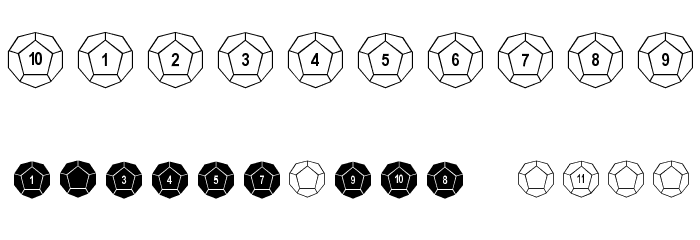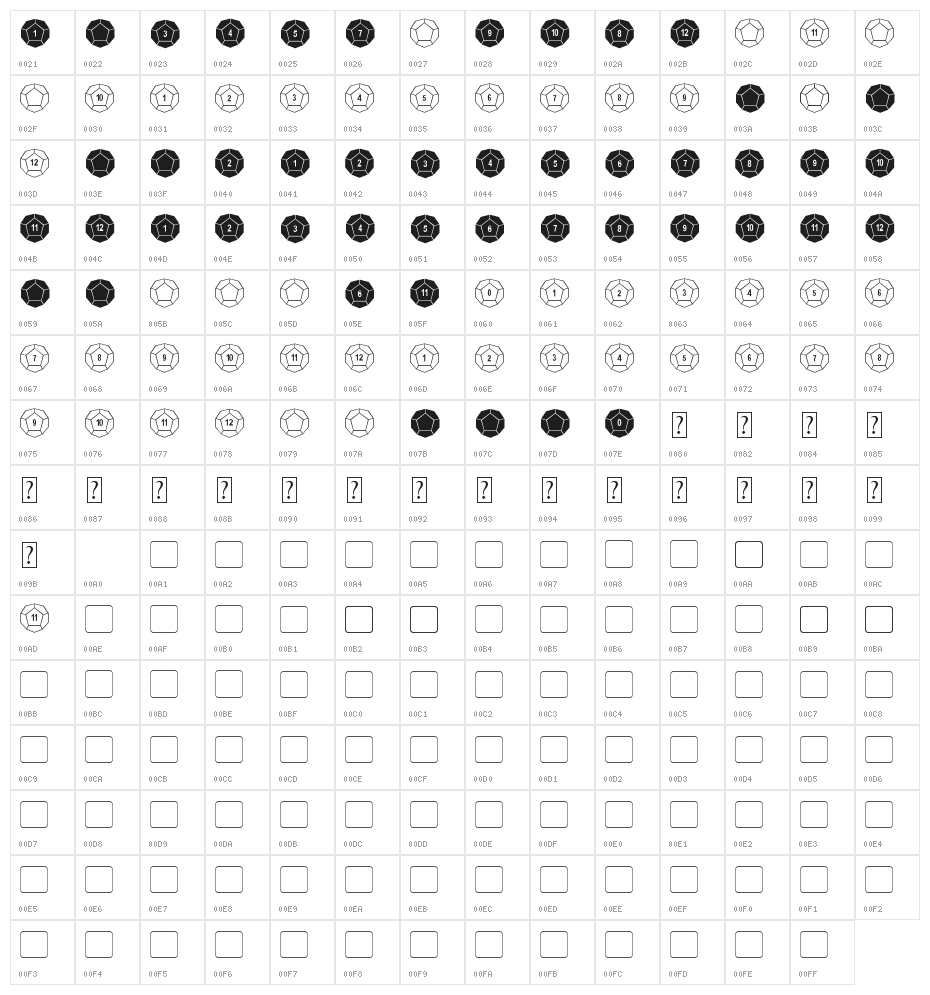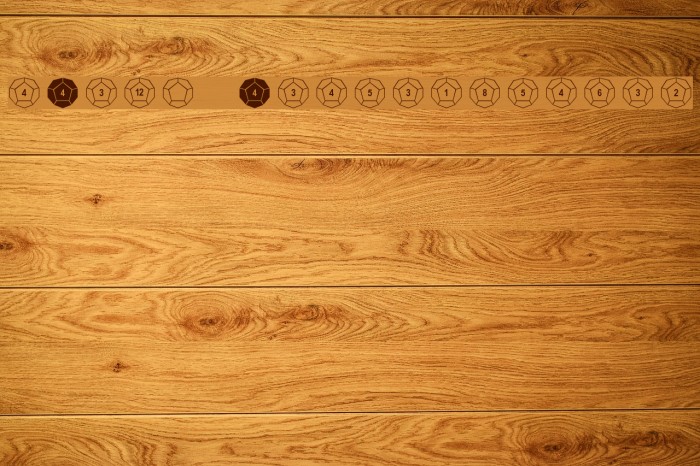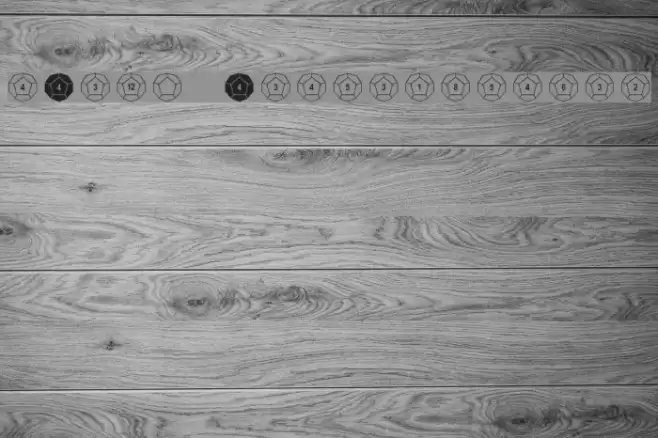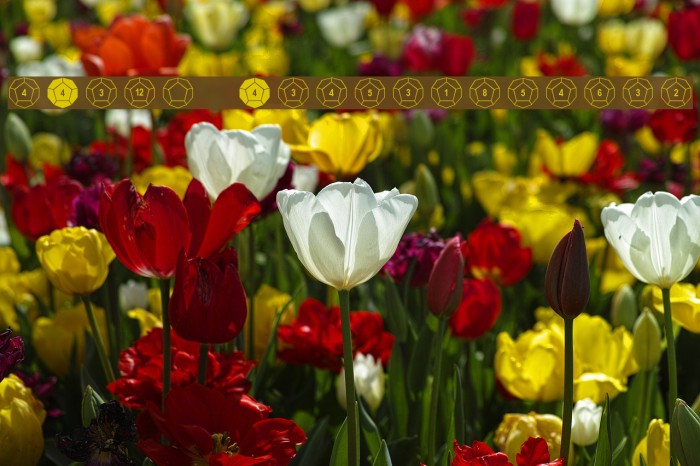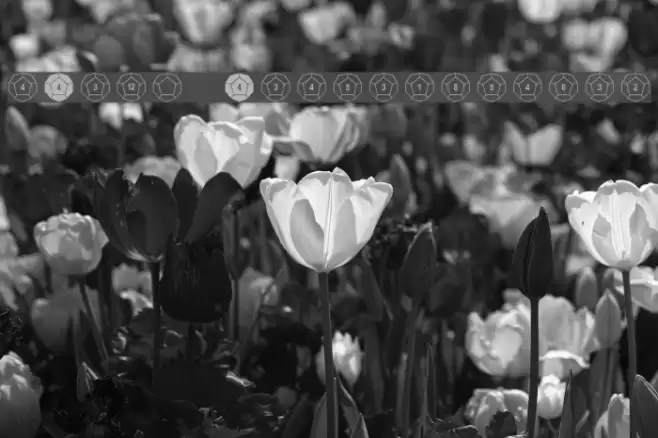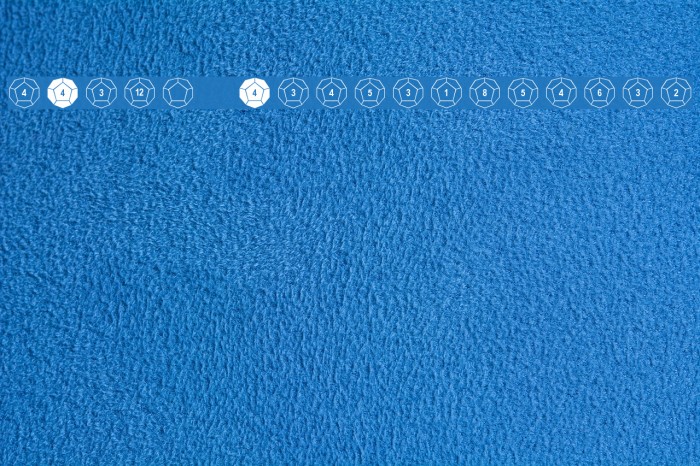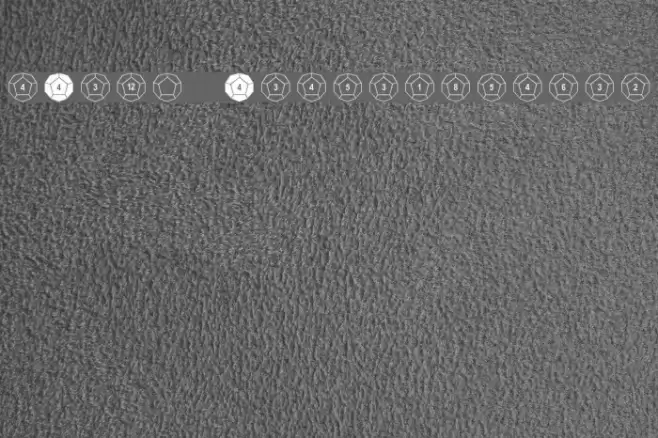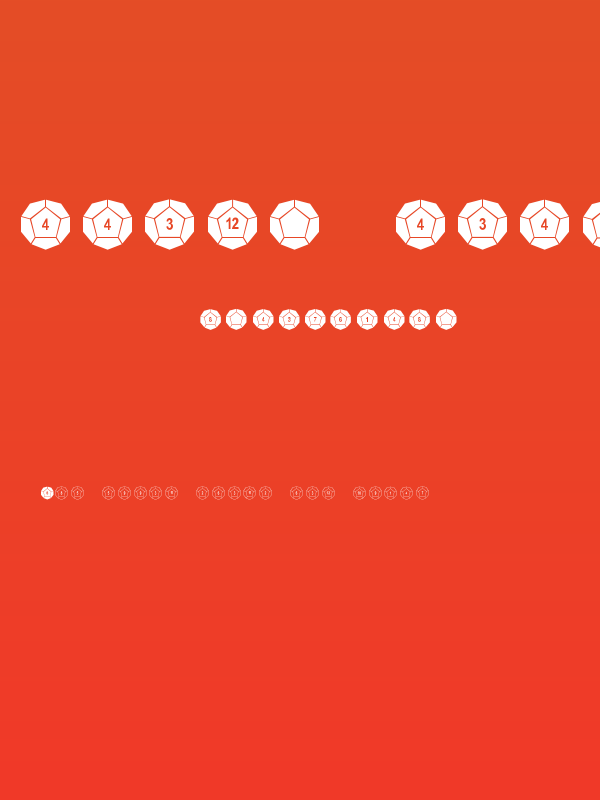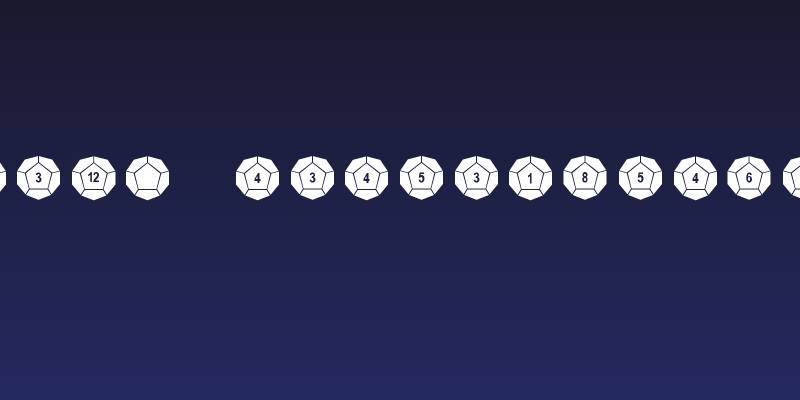
dPoly Dodecahedron Font
dPoly Dodecahedron Description
Geometric numerals are centered within dodecahedron outlines, alternating between filled and unfilled backgrounds, creating a structured, mathematical appearance. The numbers are clear and legible, with a sans-serif style and even stroke weight.
| Overall Style | Modern, Geometric, Decorative |
| Use Case | Game design, Infographics, Educational charts, Themed posters |
| Proposed Projects | Board games, educational materials, math or science infographics, dice design, tabletop gaming accessories. |